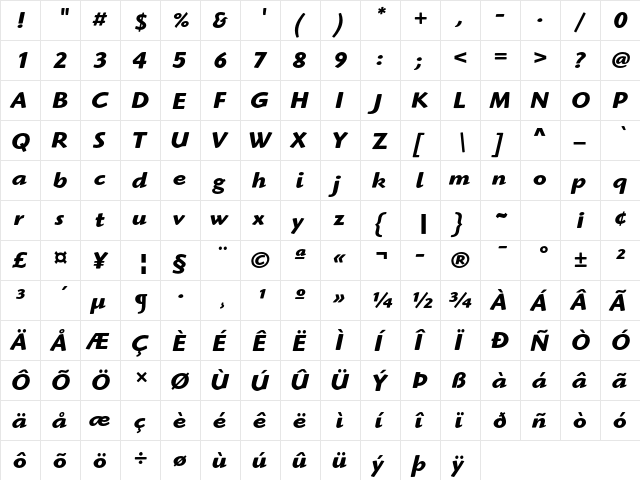
Highlander ITC Std Bold Italic
| Designer | David Farey |
Design Context for Highlander ITC Std Typeface
Highlander ITC Std is a composed and adaptable typeface that performs quietly and consistently across a wide range of design contexts. Its italic angle brings a sense of urgency and motion to the letterforms. Its bold stroke weight gives it real presence on the page.
Pro Tip: Try Highlander ITC Std for annotation and caption copy alongside an upright companion — the contrast in angle creates a dynamic but ordered typographic system.